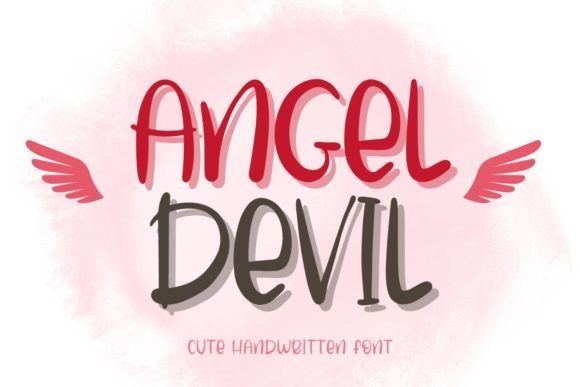
Introduction to Angel Devil Font
Angel Devil is a cute and playful handwritten font.
With its casual charm, this font is perfect for a wide pool of design ideas .
Key Features of Angel Devil Font
Why Choose Angel Devil Font?